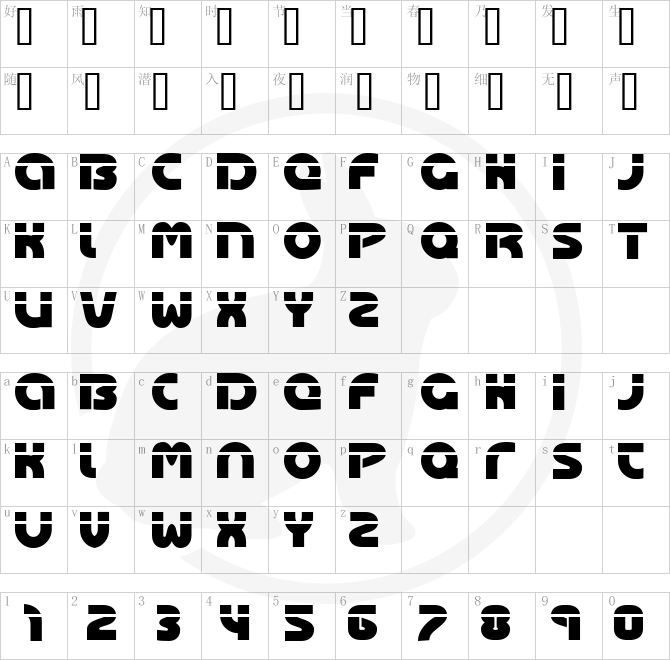
- Font Name:Oasis
Oasis.ttf is a very beautiful artistic font, Oasis.ttf is widely used in the design and printing of various books and pictures,Oasis.ttf has a strong visual impact,Oasis.ttf is a commonly used font in newspapers, magazines and books, and is used in posters, e-commerce Poster design, store design, logo design, font design and other fields.Oasis.